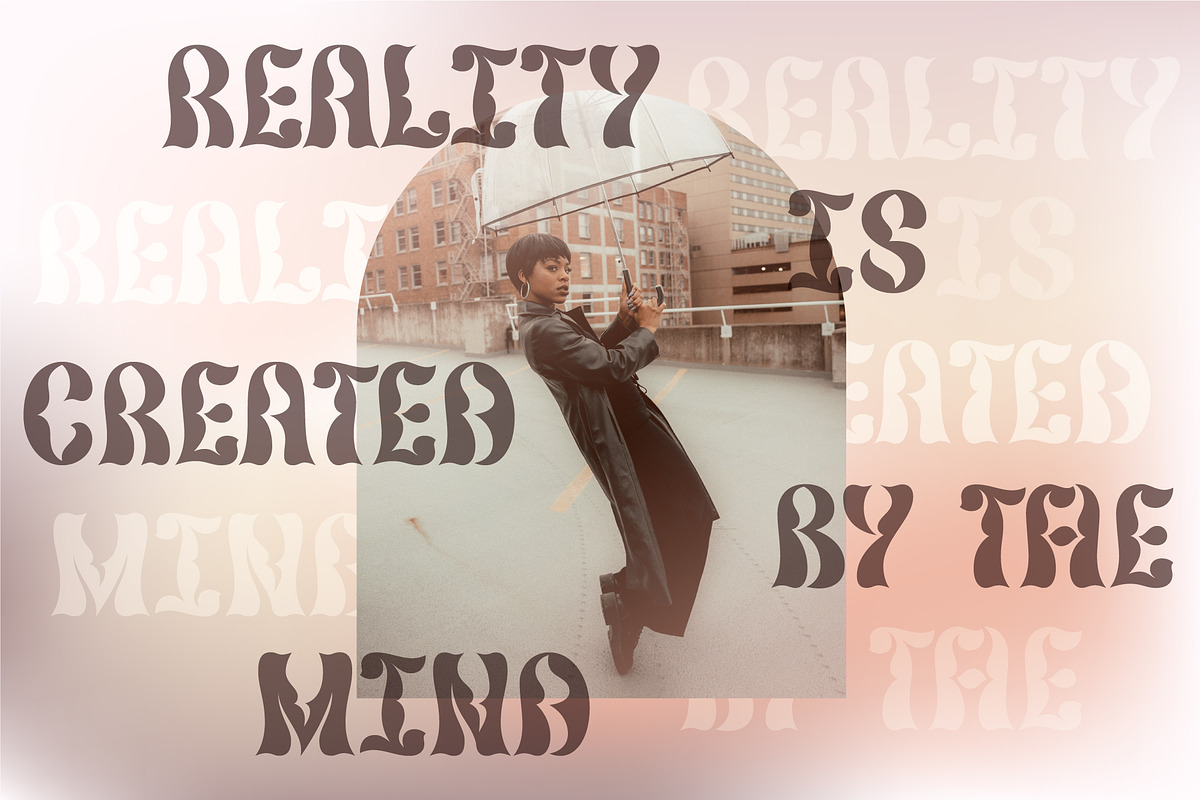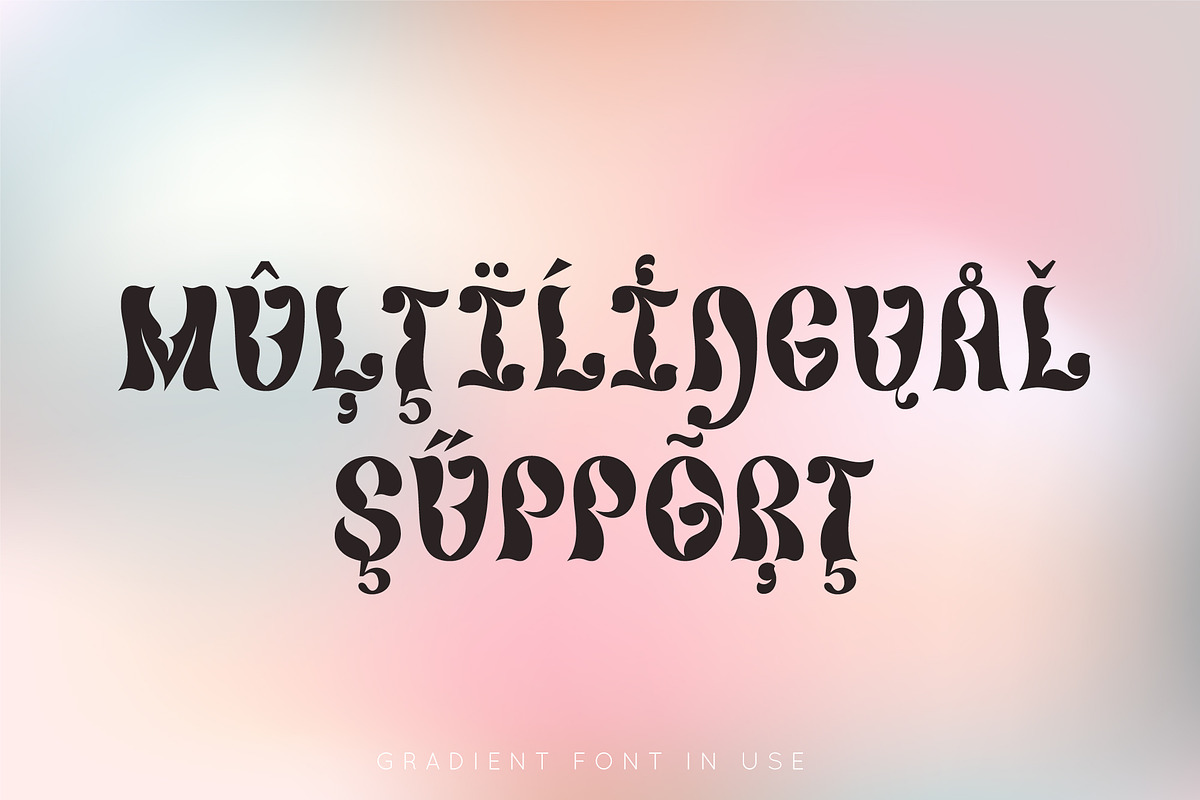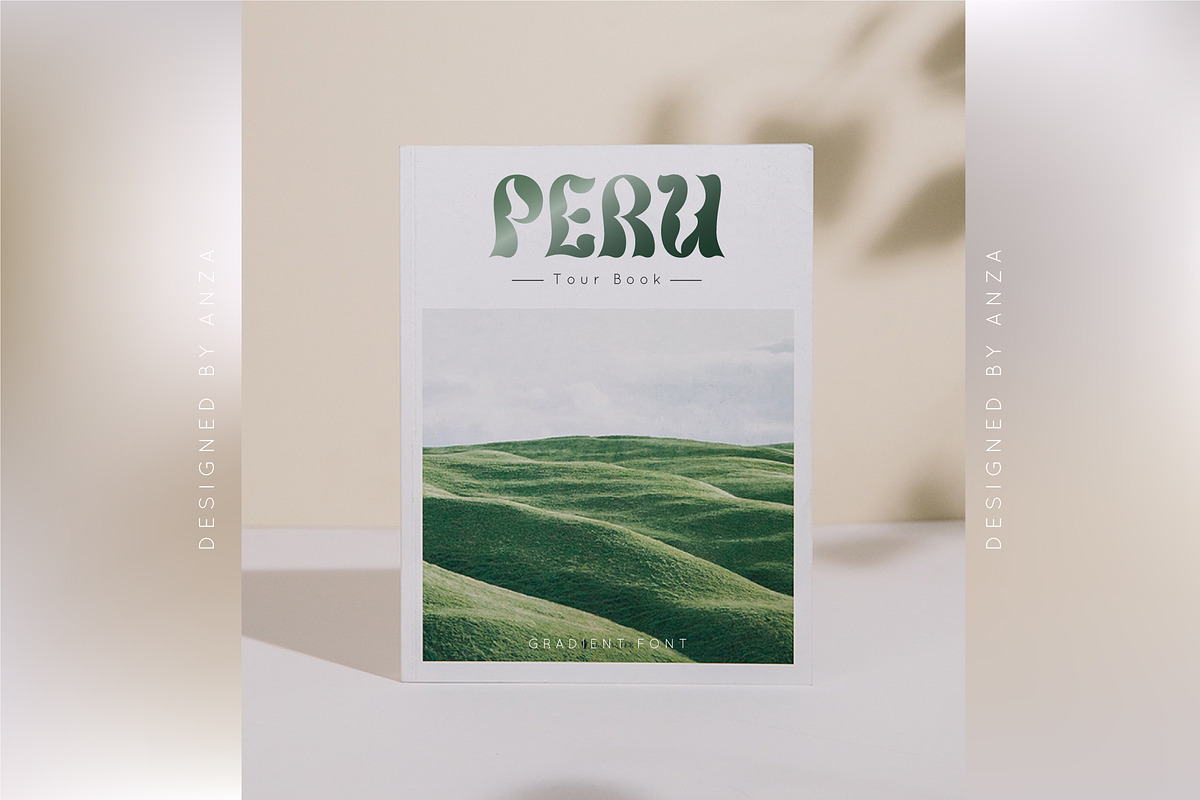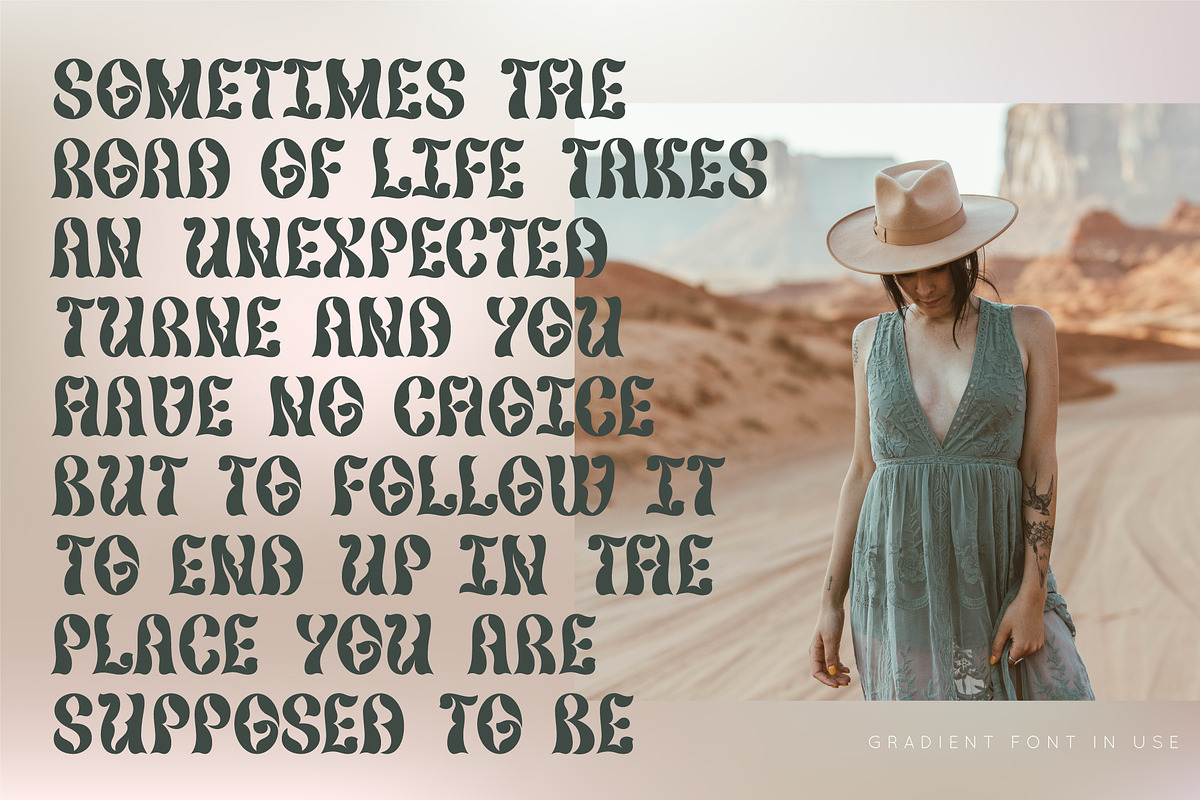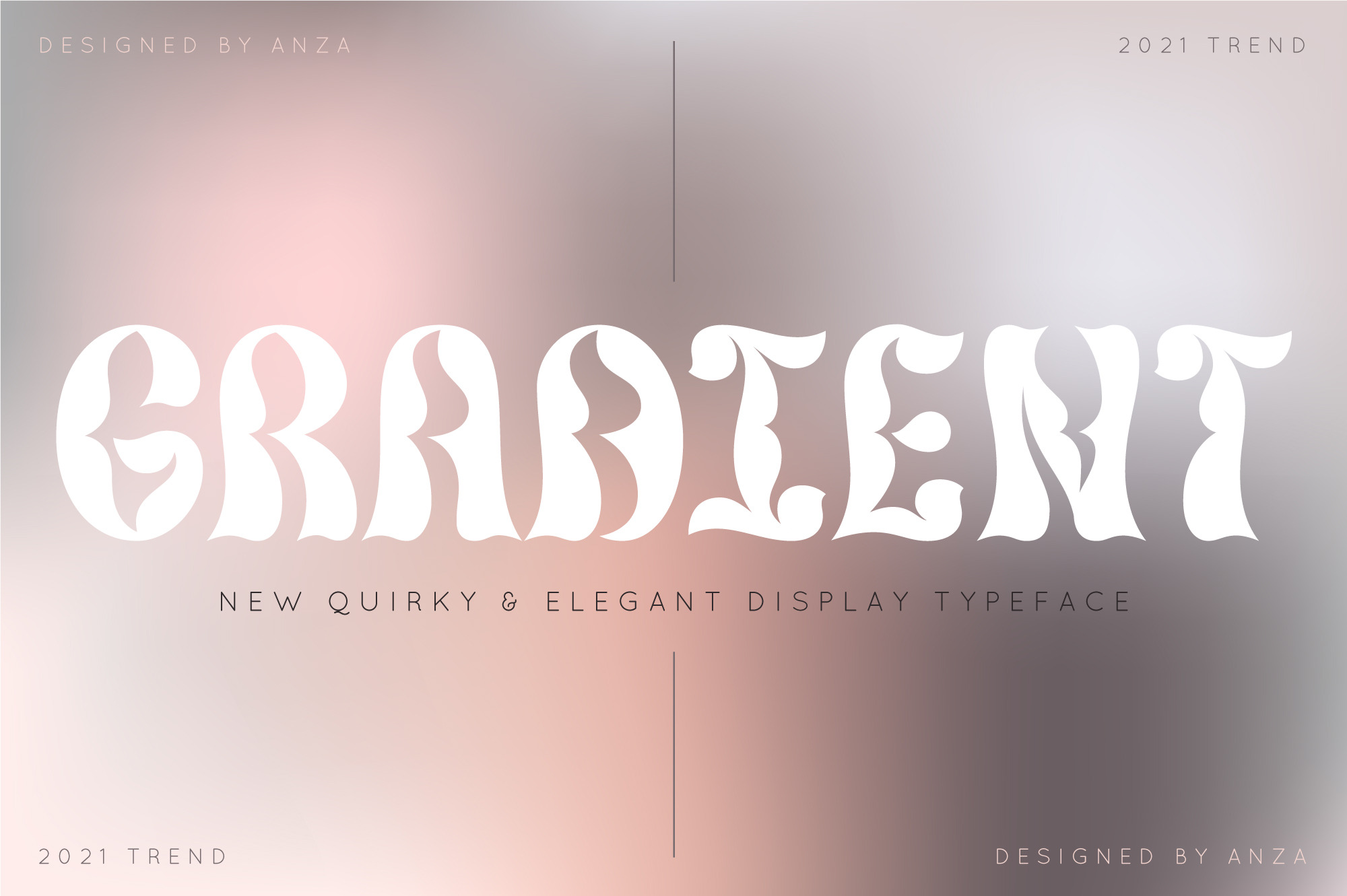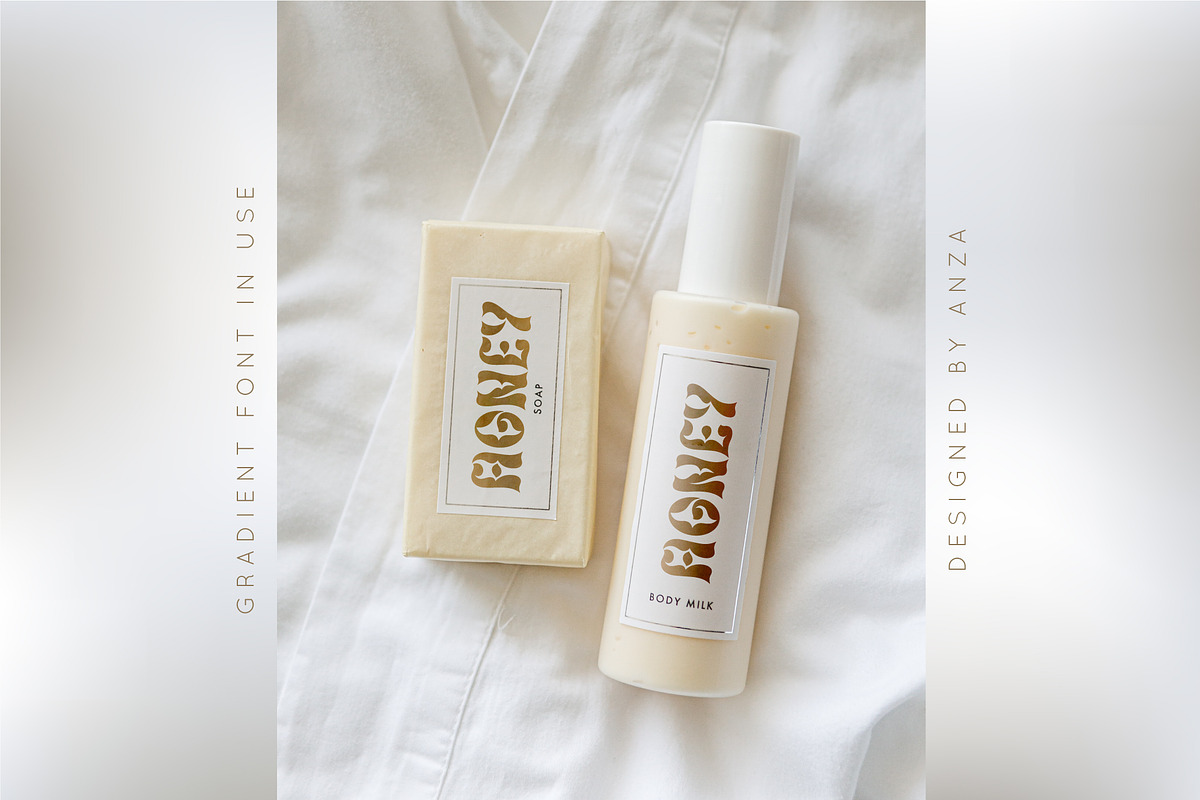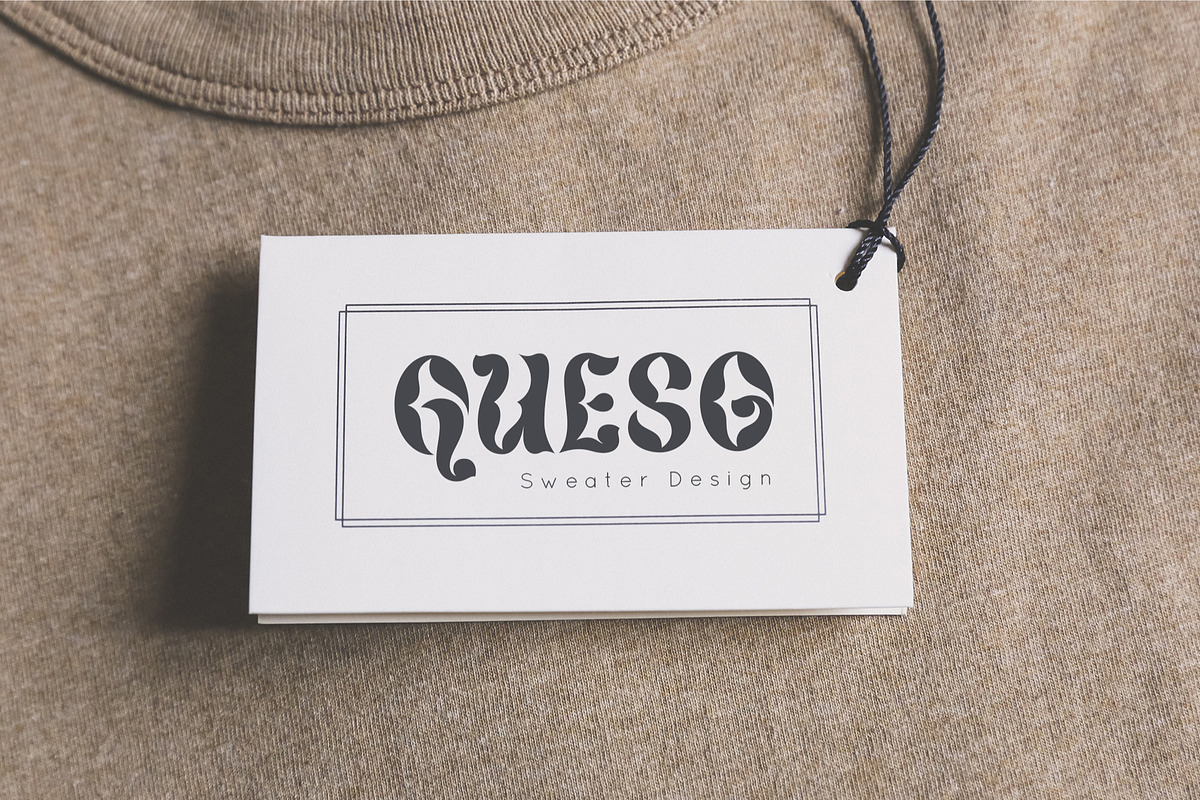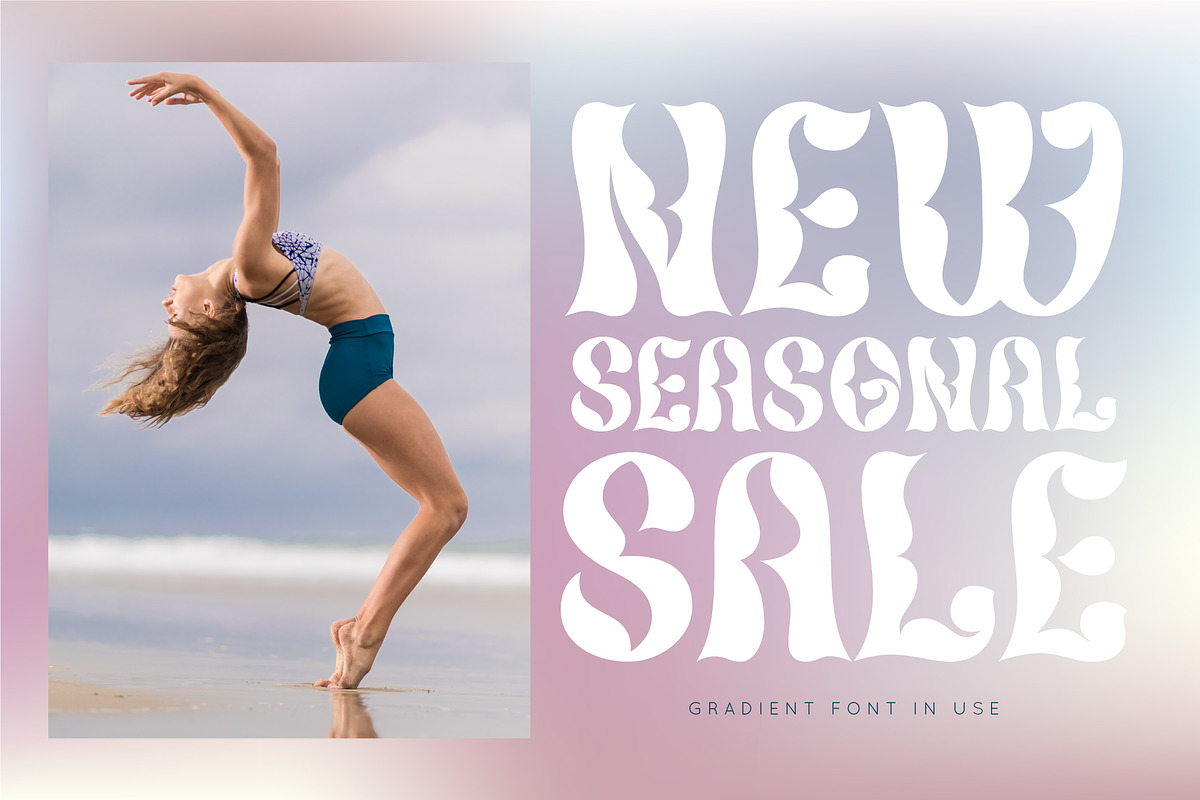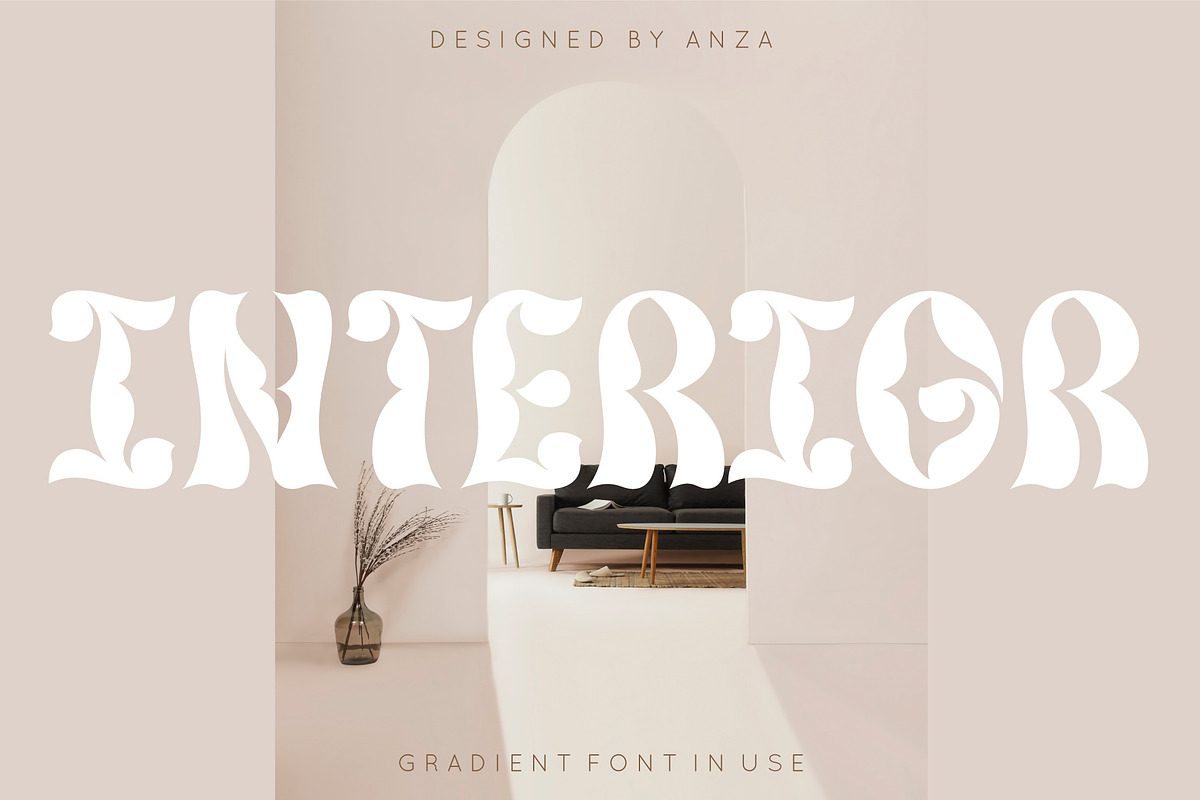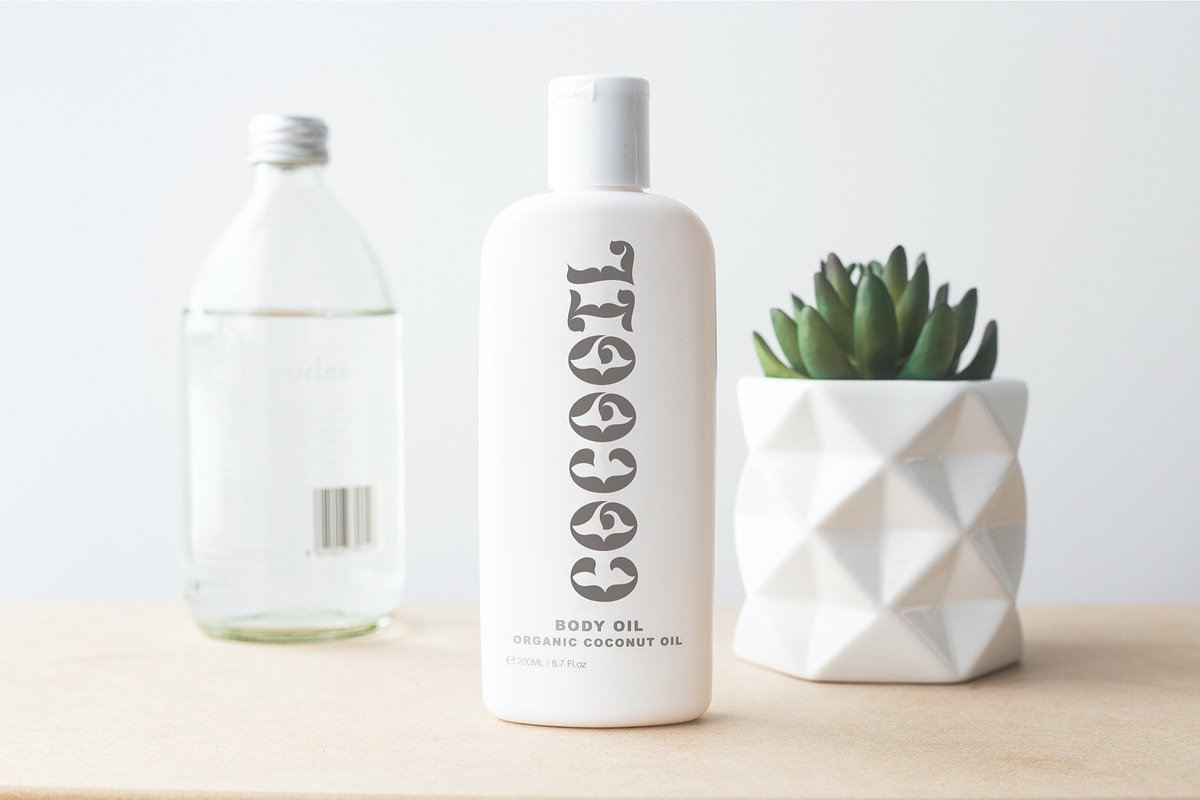
Gradient quirky font
Gradient is a new "display quirky" and "elegant typeface" designed to bring more warm and cheerful emotions to everyday life. This font is characterized by its retro elegance and funny twists, reflects both the romantic and the dynamic side.
Gradient is perfect for headings, flyer, greeting cards, product packaging, book cover, printed quotes, logotype, apparel design, album covers, etc.
This font has uppercase characters, numbers and punctuations, multilingual support (French, German, Italian, Norwegian, Portuguese, Spanish, Swedish, Swiss German).